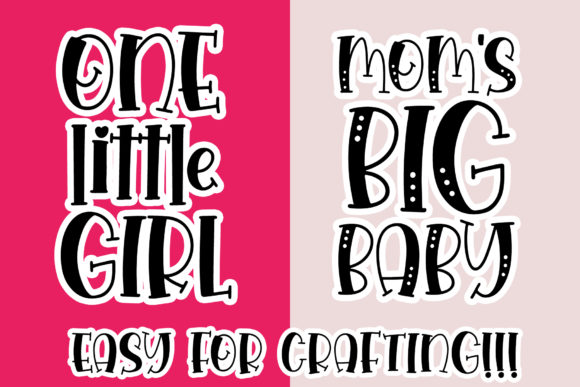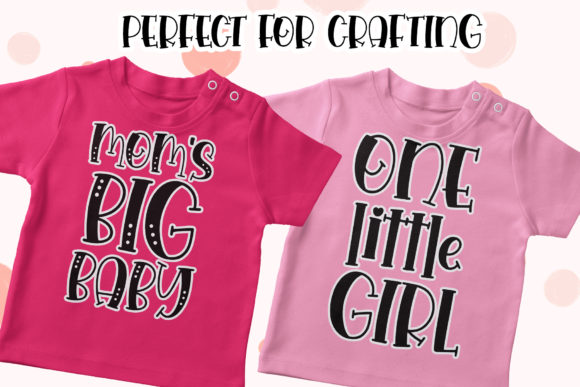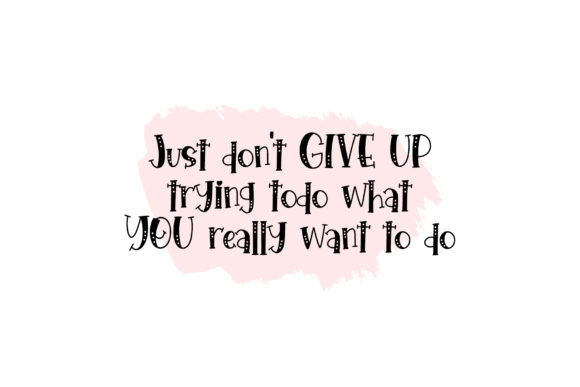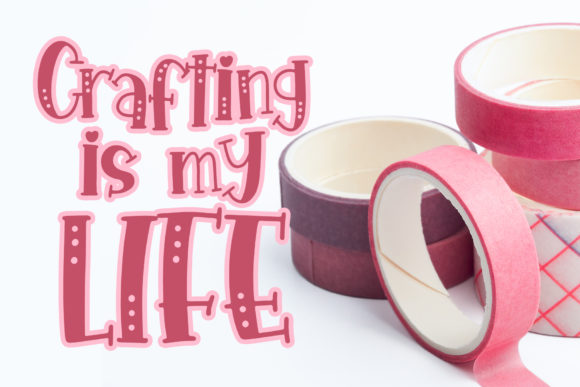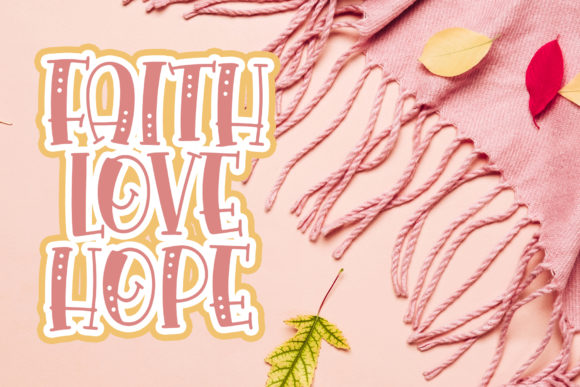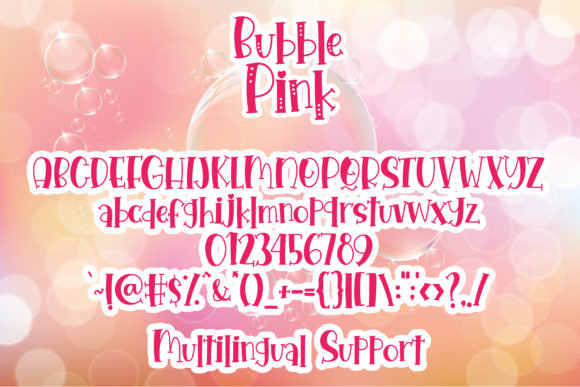
Unlocking the Magic of Handwritten Typography
Have you ever stumbled upon that perfect font that takes your design from ordinary to extraordinary? For many of us, that moment comes when we discover the right combination of style and personality. It’s like finding the missing piece of a puzzle, and suddenly, everything falls into place. For designers, that moment is often the turning point that sets their project apart from the rest.
That’s where the Bubble Pink Font comes in – a spectacular handwritten font that’s as versatile as it is beautiful. With its unique blend of elegance and playfulness, this font is perfect for adding a touch of whimsy to your designs. Whether you’re working on a branding project, a social media campaign, or a simple greeting card, the Bubble Pink Font is sure to elevate your work to new heights.
Bubble Pink Font Key Features
- Font Family: Bubble Pink Font is a unique, hand-drawn sans-serif font designed for creative and playful applications.
- Unique Characteristics: Features a distinctive, bubbly design with rounded edges and smooth curves, perfect for creating eye-catching and whimsical text effects.
Bubble Pink Font Review
I recently had the chance to work with the “Bubble Pink Font” and I must say it’s a unique addition to any design project. Here’s my honest review:
- Cute and playful vibe: The “Bubble Pink Font” is perfect for designs that need a touch of whimsy and fun. Its rounded shapes and soft curves create a friendly and approachable atmosphere.
- Easy to read: Despite its playful nature, the font is surprisingly easy to read, even at smaller sizes. The letterforms are well-proportioned and clear.
- Customization options: The font comes with a range of customization options, including different sizes, colors, and styles, which makes it versatile for various design applications.
- Limited legibility at very small sizes: While the font is generally easy to read, it can become a bit fuzzy and difficult to read when used at extremely small sizes.
- Not ideal for formal or professional designs: The “Bubble Pink Font” is best suited for playful and creative projects, and may not be the best choice for formal or professional designs.
Overall impression
The “Bubble Pink Font” is a fun and playful addition to any design project. While it may have some limitations, its unique character and customization options make it a great choice for creative and whimsical designs.
Use the Bubble Pink font to add a touch of whimsy and playfulness to your designs. Pair it with bold, contrasting colors to create a striking visual effect. Experiment with different font sizes and styles to achieve the desired balance between text and background.
The Bubble Pink font is ideal for:
- Designing children’s book covers and illustrations
- Creating eye-catching social media graphics
- Adding a touch of personality to wedding invitations and stationery
- Designing playful and engaging educational materials
Bubble Pink Font is a playful and whimsical font often used in designs that require a touch of elegance and sophistication. However, there are several alternatives that designers can use depending on their specific needs and preferences.